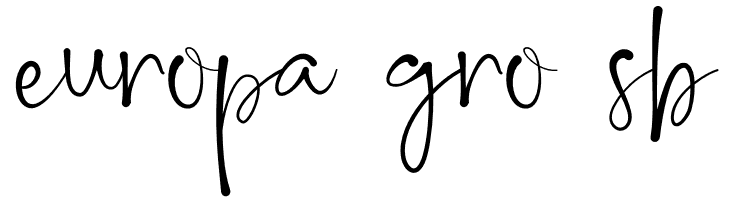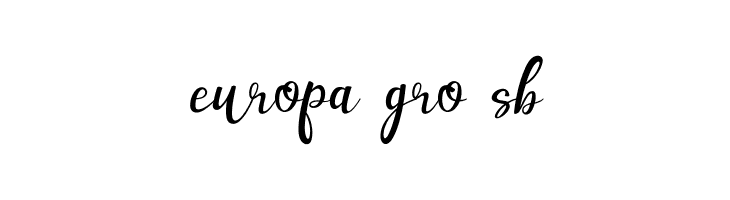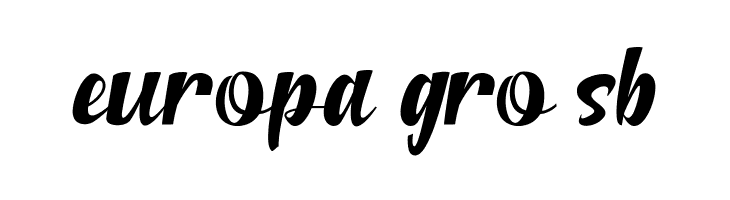
( Haksen Letters - Sarwo Edhi Prayitno )
A bold, cursive script font with elegant, flowing lines and connected characters.
( Haksen Letters - Sarwo Edhi Prayitno )
A bold, decorative serif font with playful curves and modern elements.
( Haksen Letters - Sarwo Edhi Prayitno )
A whimsical, handwritten font with playful loops and curves.
( Haksen Letters - Sarwo Edhi Prayitno )
A playful and elegant script font with bold, flowing uppercase and smooth, handwritten lowercase letters.
( Haksen Letters - Sarwo Edhi Prayitno )
A flowing, cursive font with elegant loops and swashes, perfect for creative projects.
( Haksen Letters - Sarwo Edhi Prayitno )
A bold, dynamic script font with a lively and energetic style.
( Haksen Letters - Sarwo Edhi Prayitno )
A playful and elegant script font with flowing, interconnected letters.
( Haksen Letters - Sarwo Edhi Prayitno )
A playful, handwritten font with smooth, rounded strokes and a lively appearance.
( Incstone Design, by Megami Studios - Rob Barba - www.incstonedesign.com/ )
A geometric, hollow font with a modern and futuristic design.
( Incstone Design, by Megami Studios - Rob Barba - www.incstonedesign.com/ )
A bold, distressed font with an eroded, industrial look.